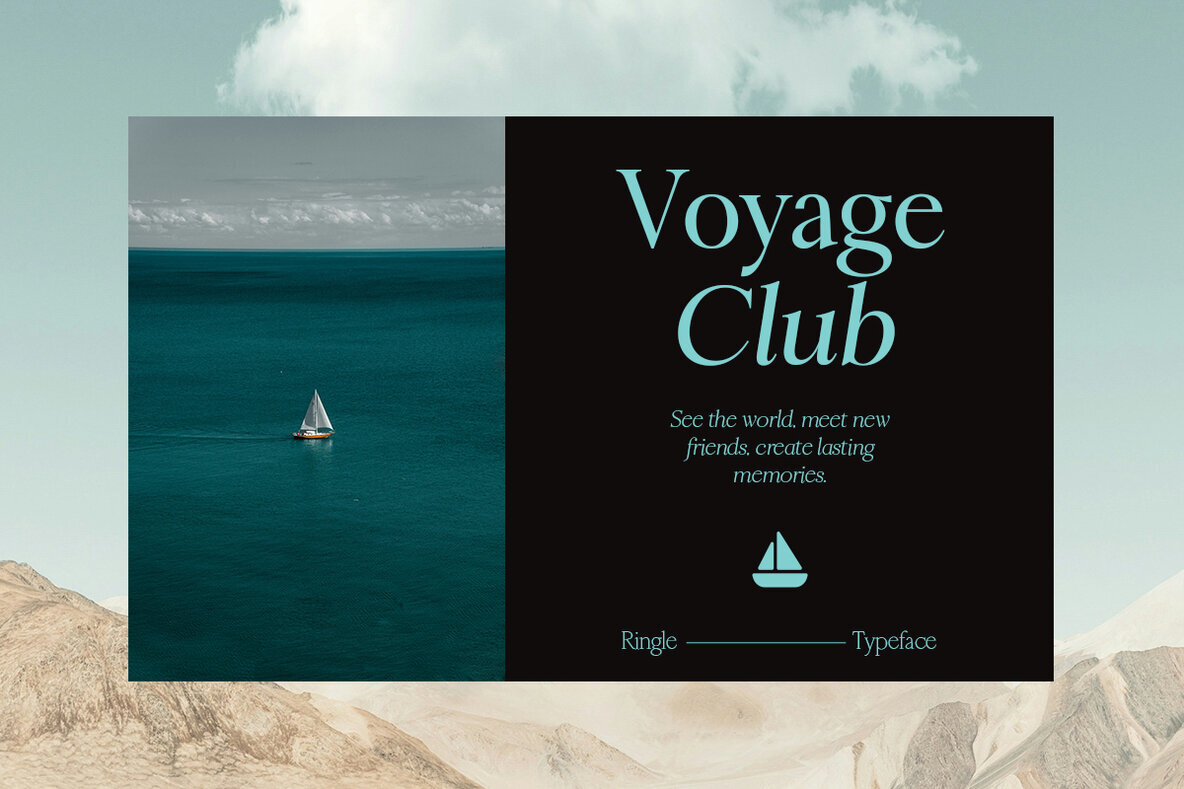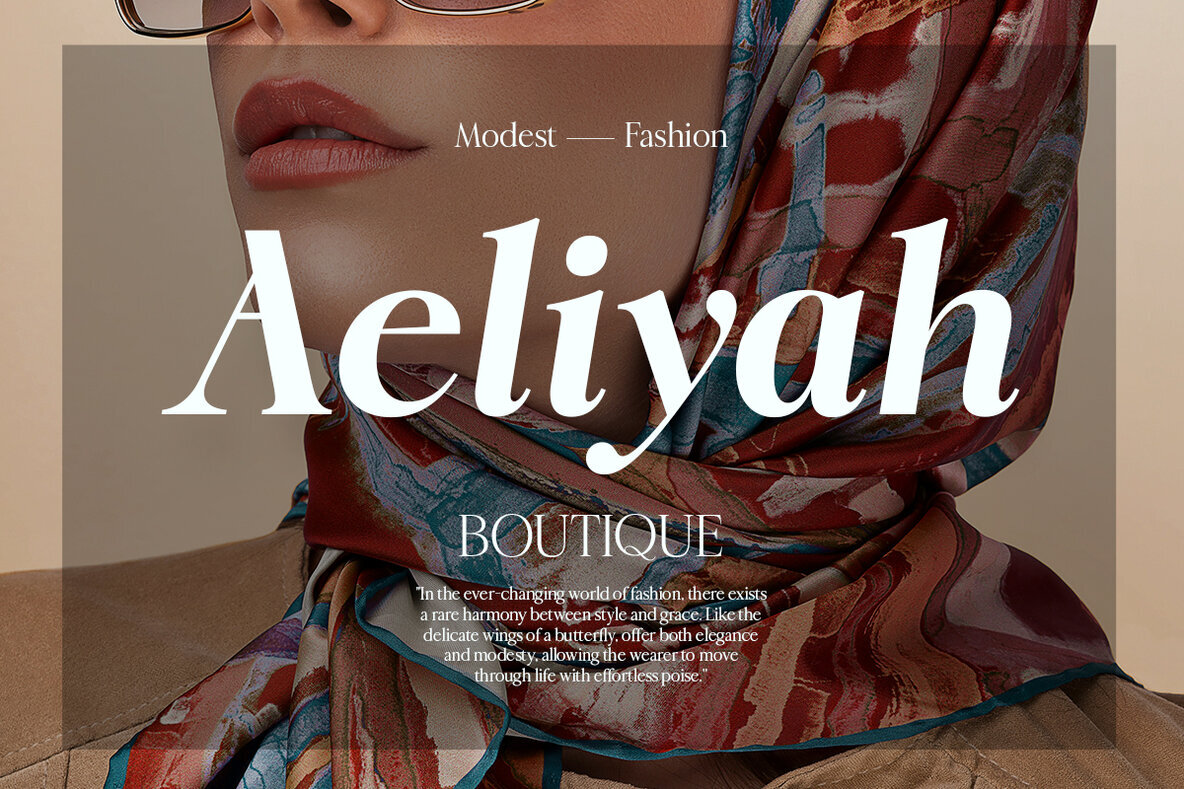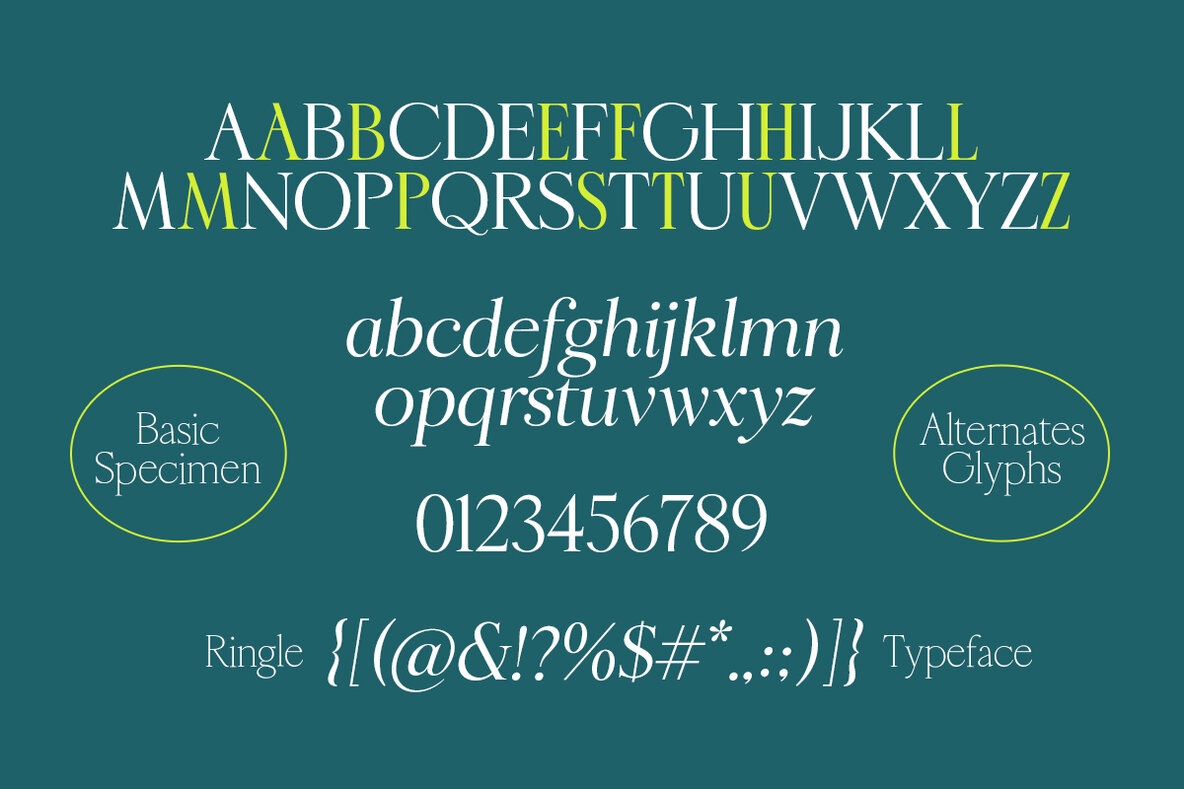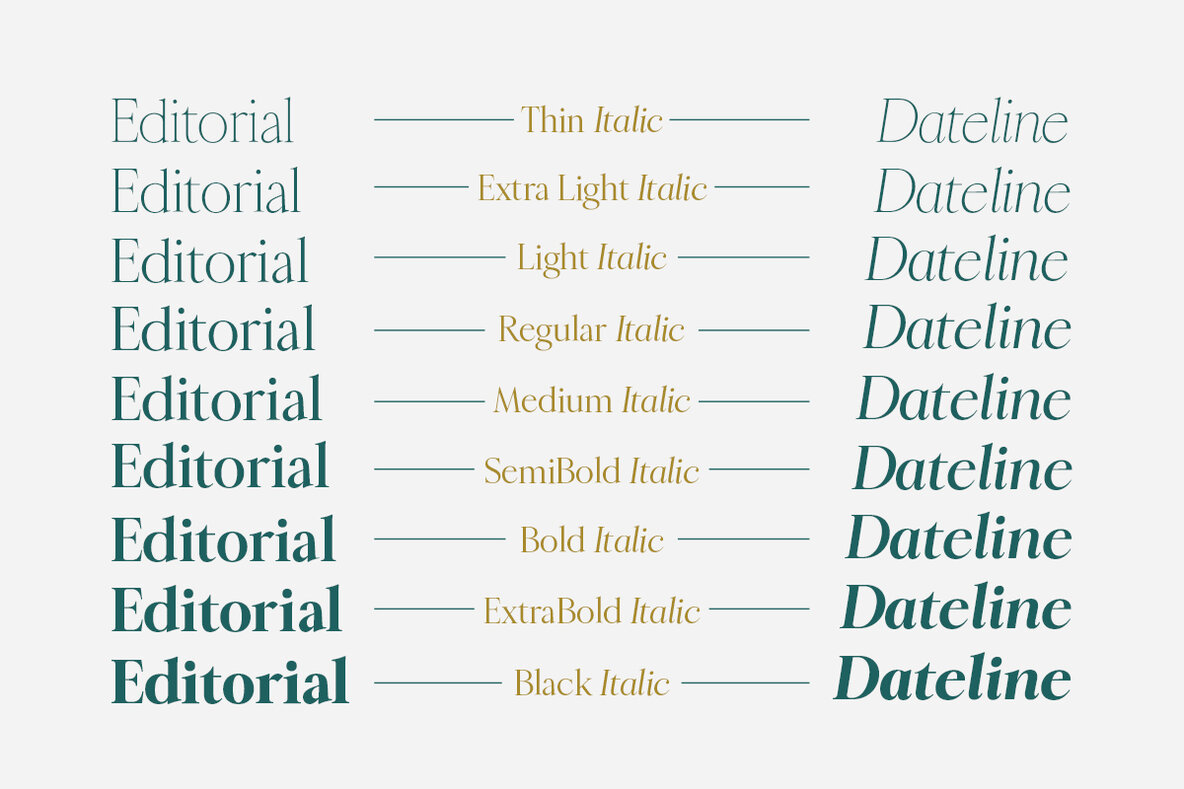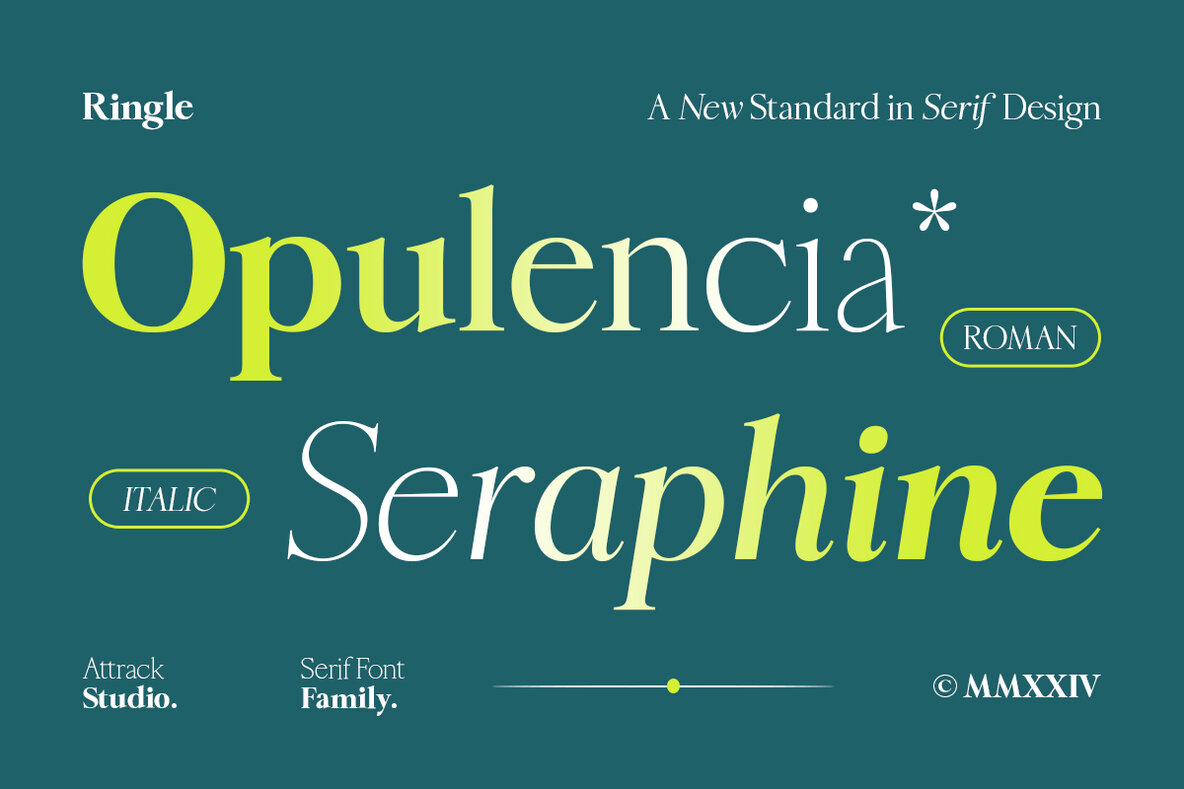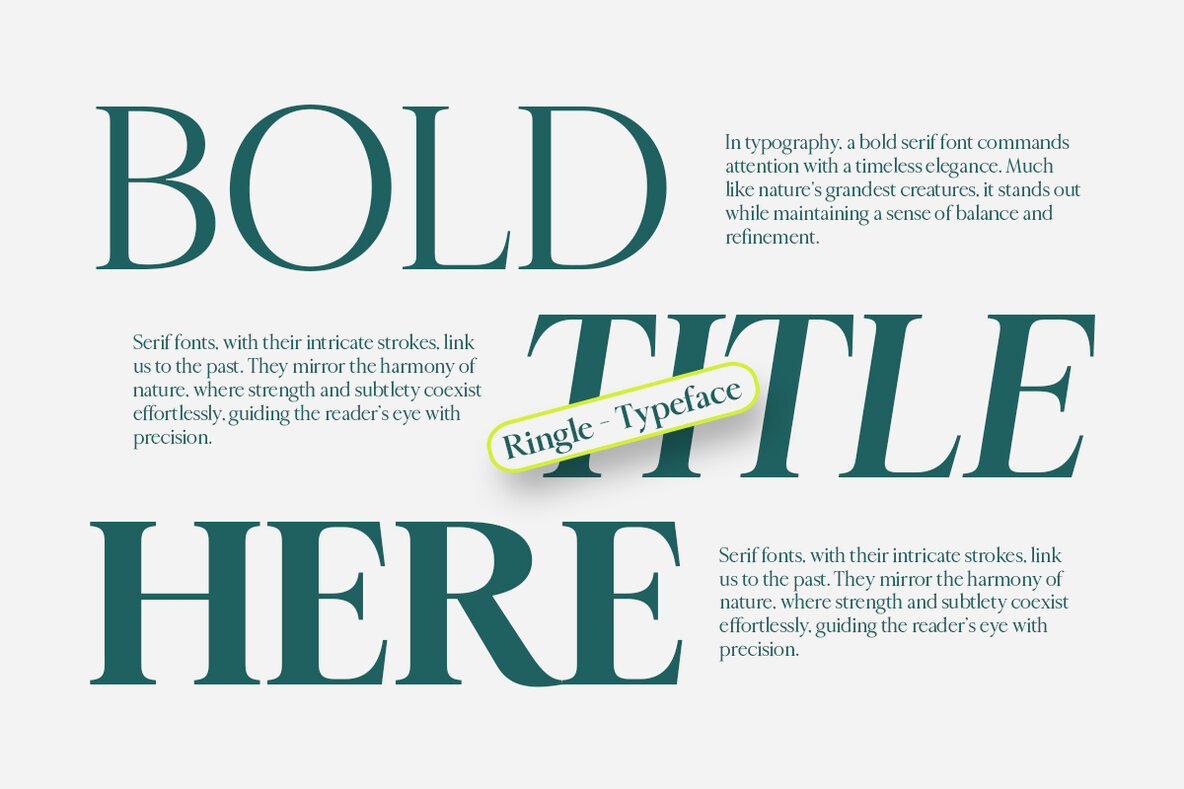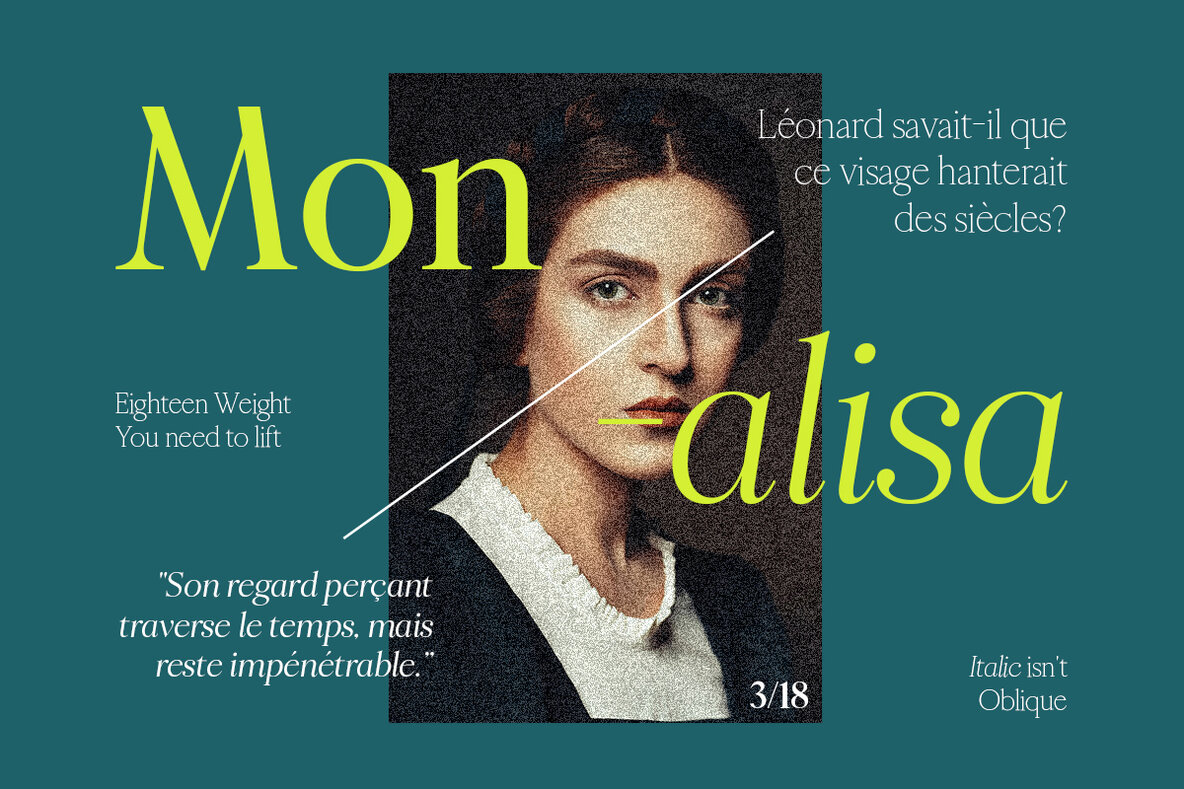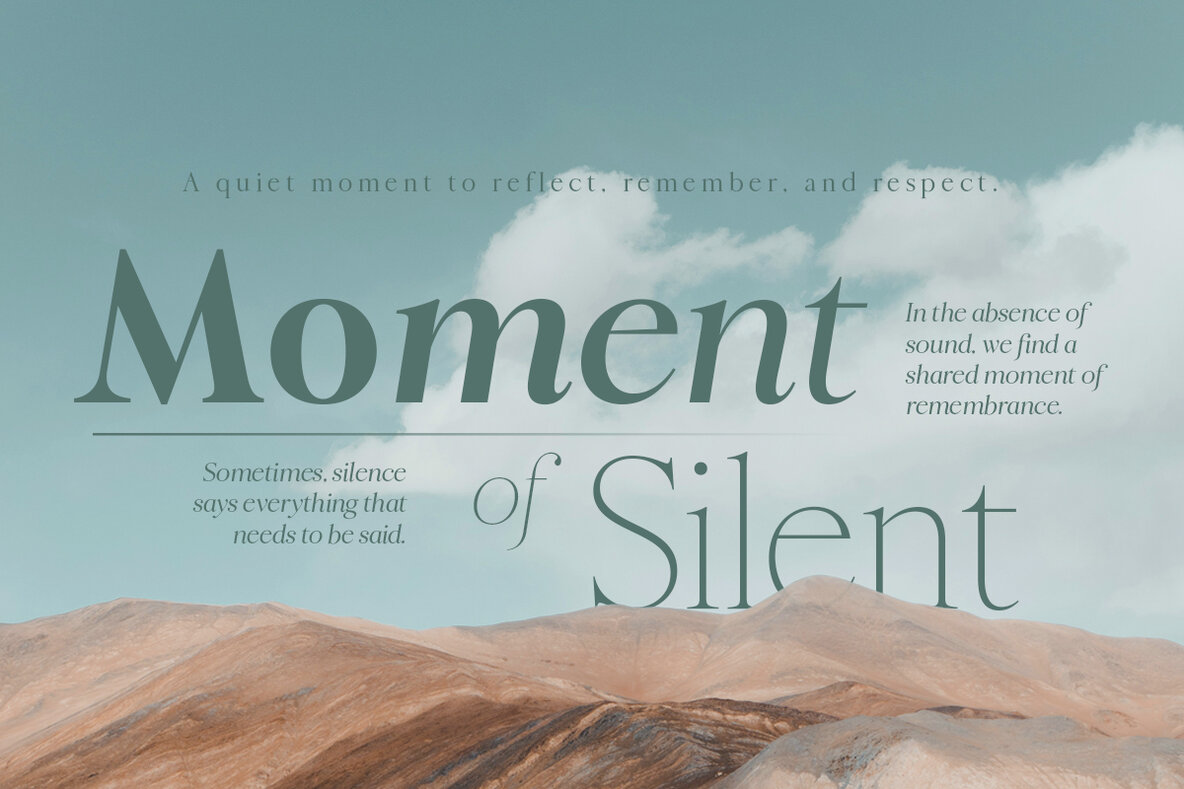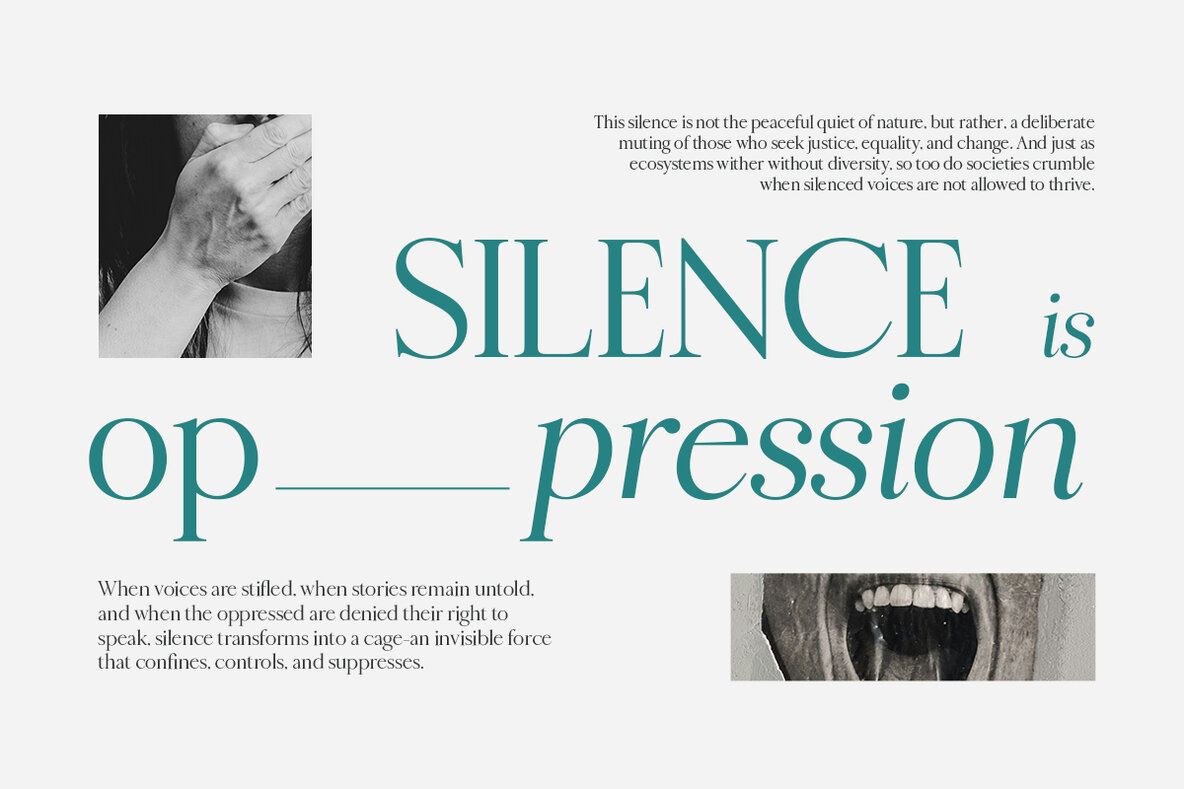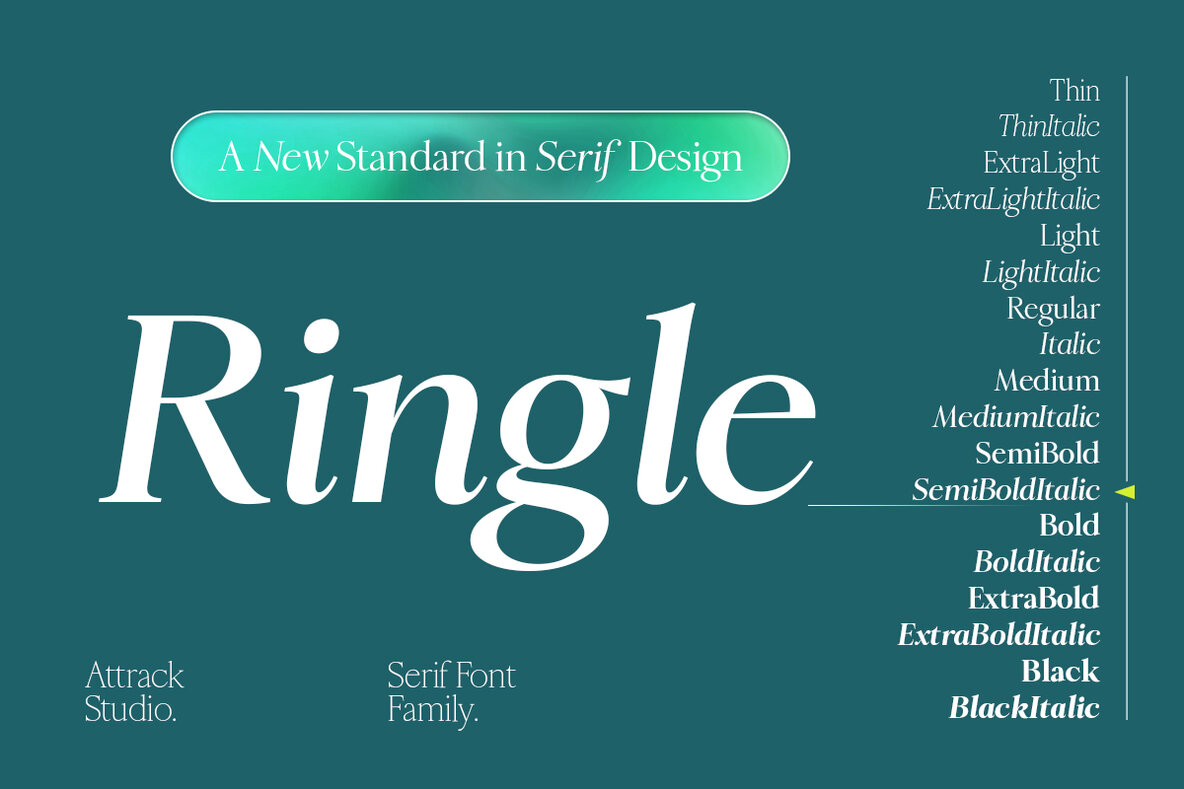
Ringle Font
Ringle is a classic and elegant retro serif typeface with a modern twist. With stunning contrast and sharp italics, Ringle comes in 18 letter weights making for a phenomenal choice for any luxury or typeface-focused branding project. With great readability, Ringle is a highly versatile font for creating nostalgic designs, from bold magazine images, to wedding invitations, to branding, poster designs, logos and more. Including : - 18 Weights - 2 Variable fonts - Alternates & Ligatures - OpenType support - Multilingual - PUA Encoded.